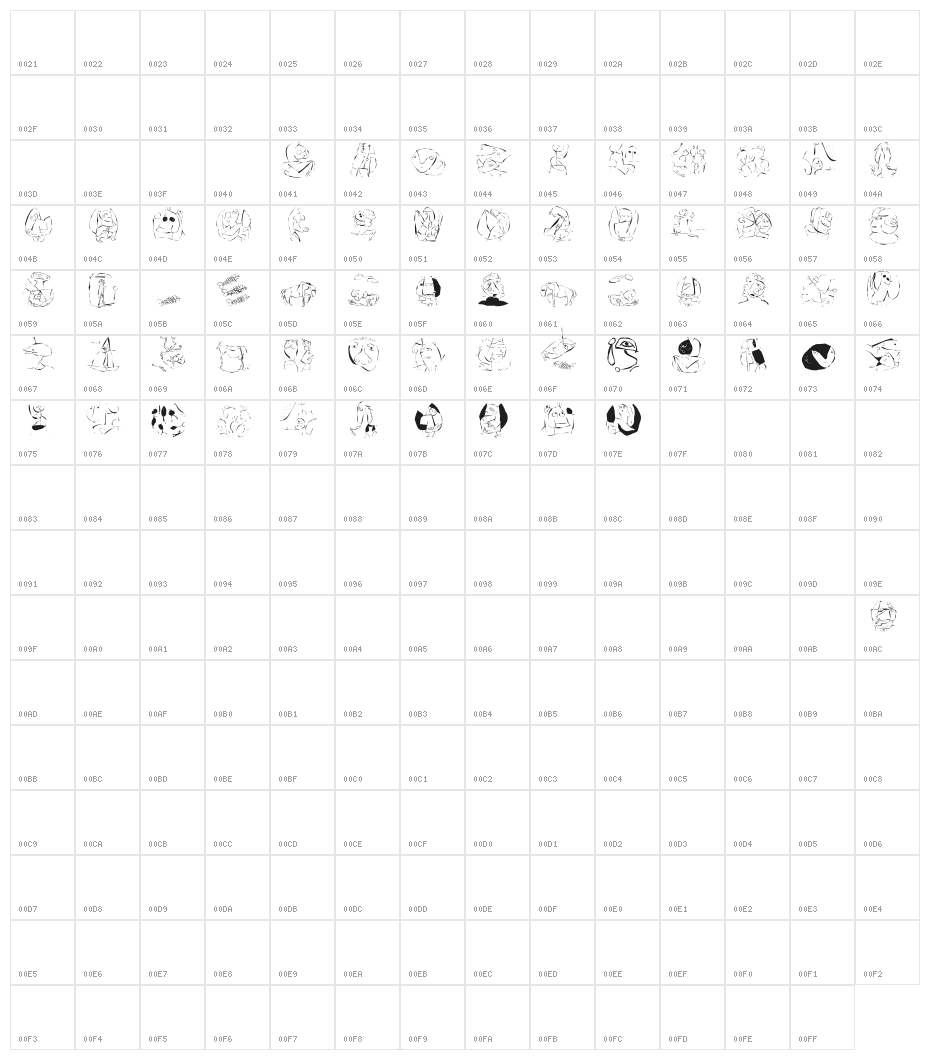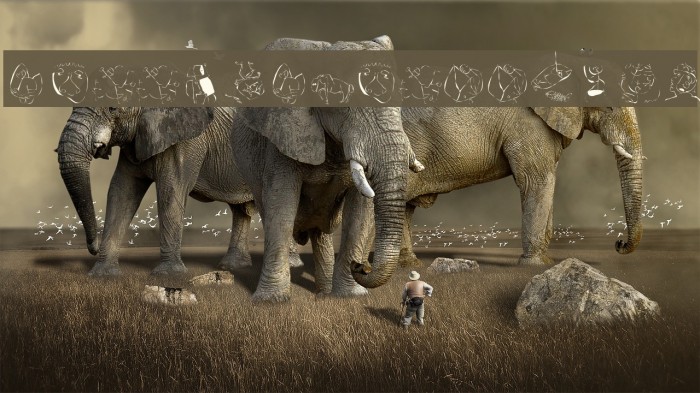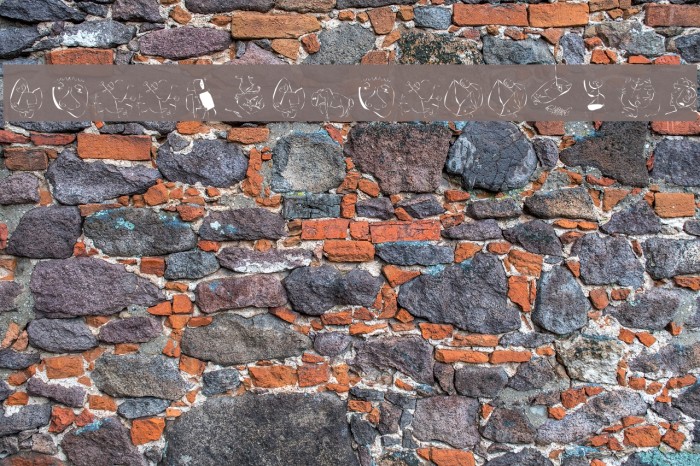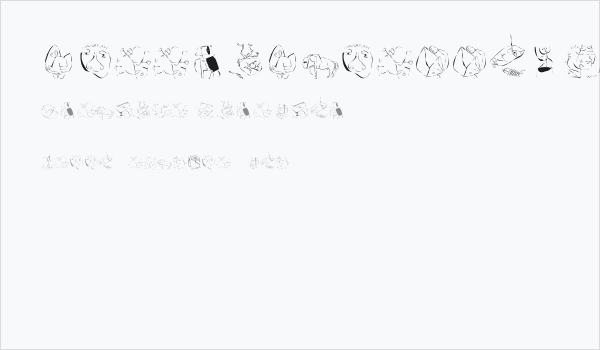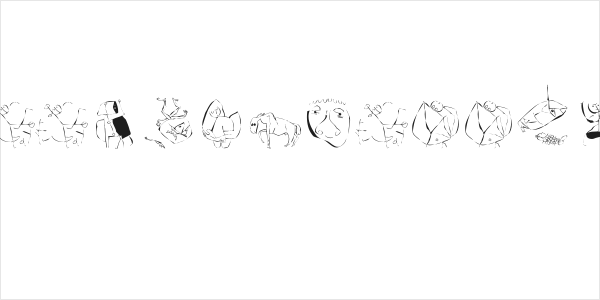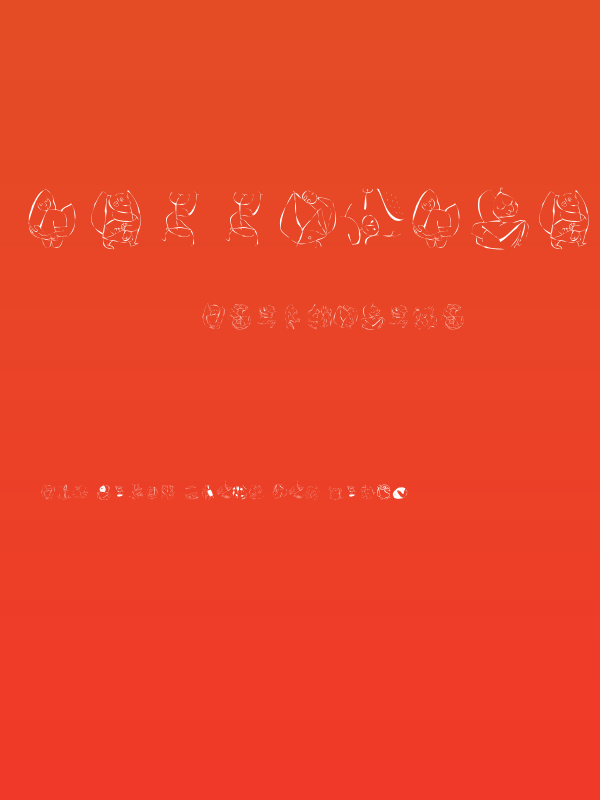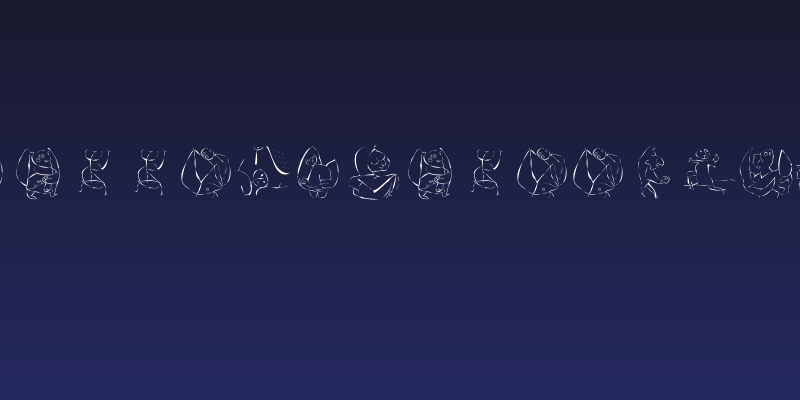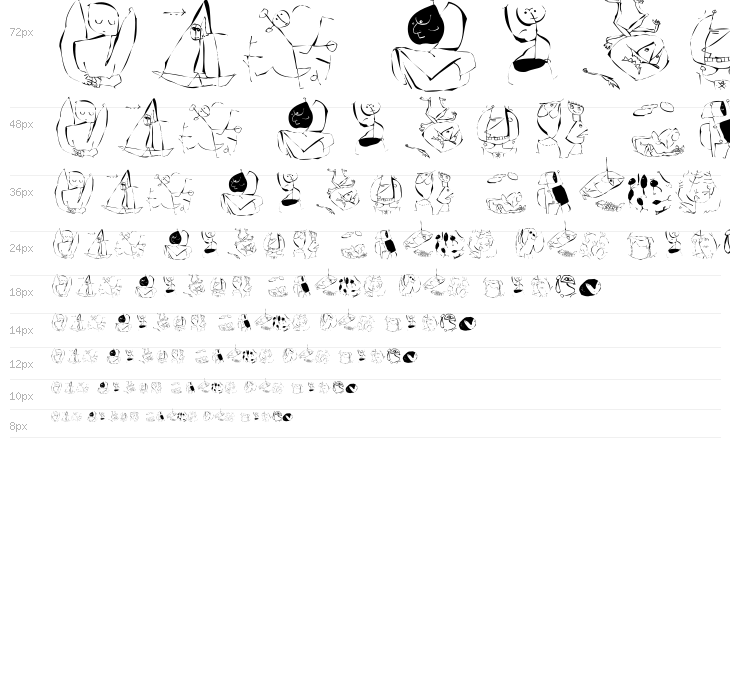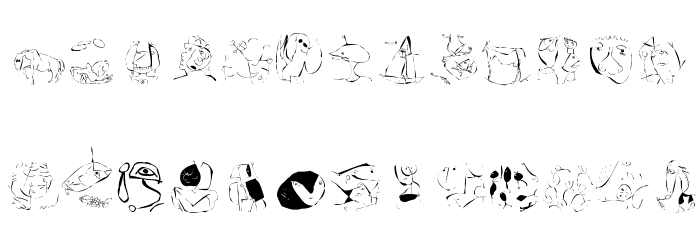
KleeriKaleRRound Font
KleeriKaleRRound Description
This font is a highly decorative and artistic representation of characters, where each letter and symbol is creatively illustrated with abstract and whimsical designs. The characters are composed of intricate line work and imaginative shapes, making each one unique and visually engaging. The style is playful and unconventional, with a focus on artistic expression rather than readability. This font is more of an art piece than a traditional typeface, offering a distinct and creative approach to typography.
Overall StyleArtistic
Use CaseArt projects, Creative posters, Unique branding
Proposed ProjectsIdeal for art projects, creative posters, unique branding, and any design work that benefits from an artistic and unconventional typeface.